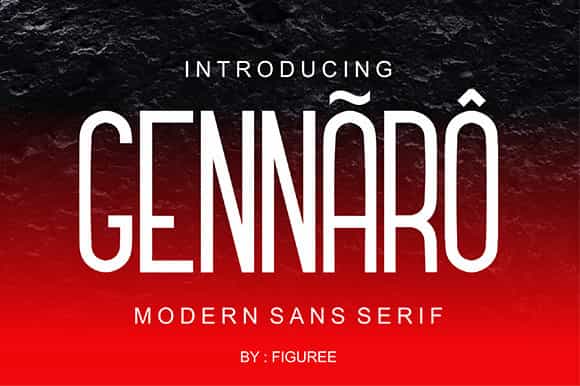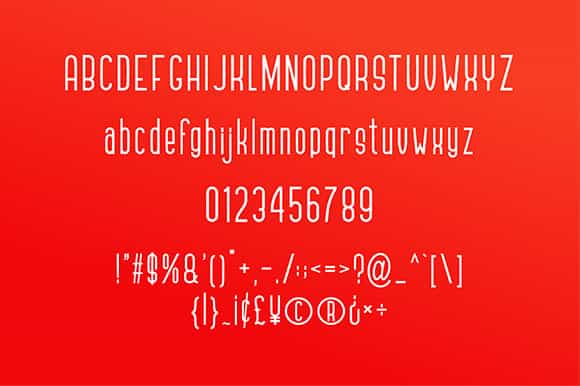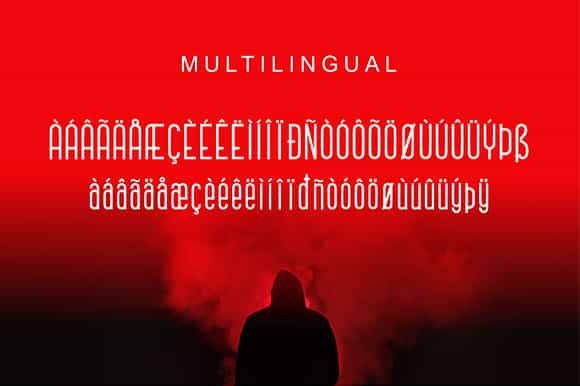
I chose the Gennaro font as the sans serif typeface has smooth line work and clean style. This style is formerly for the branding, magazines, posters, advertising, packaging, headlines, logos, web, print amongst others.